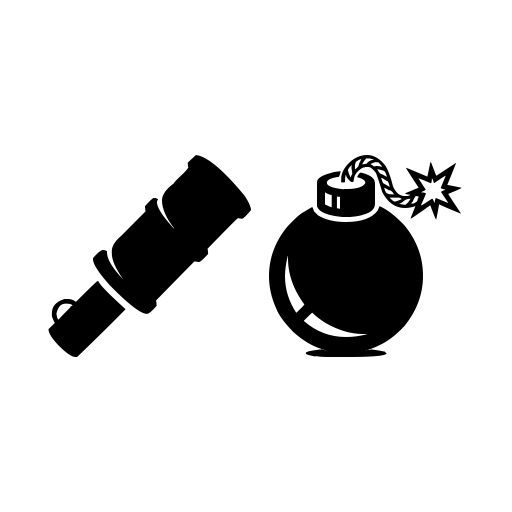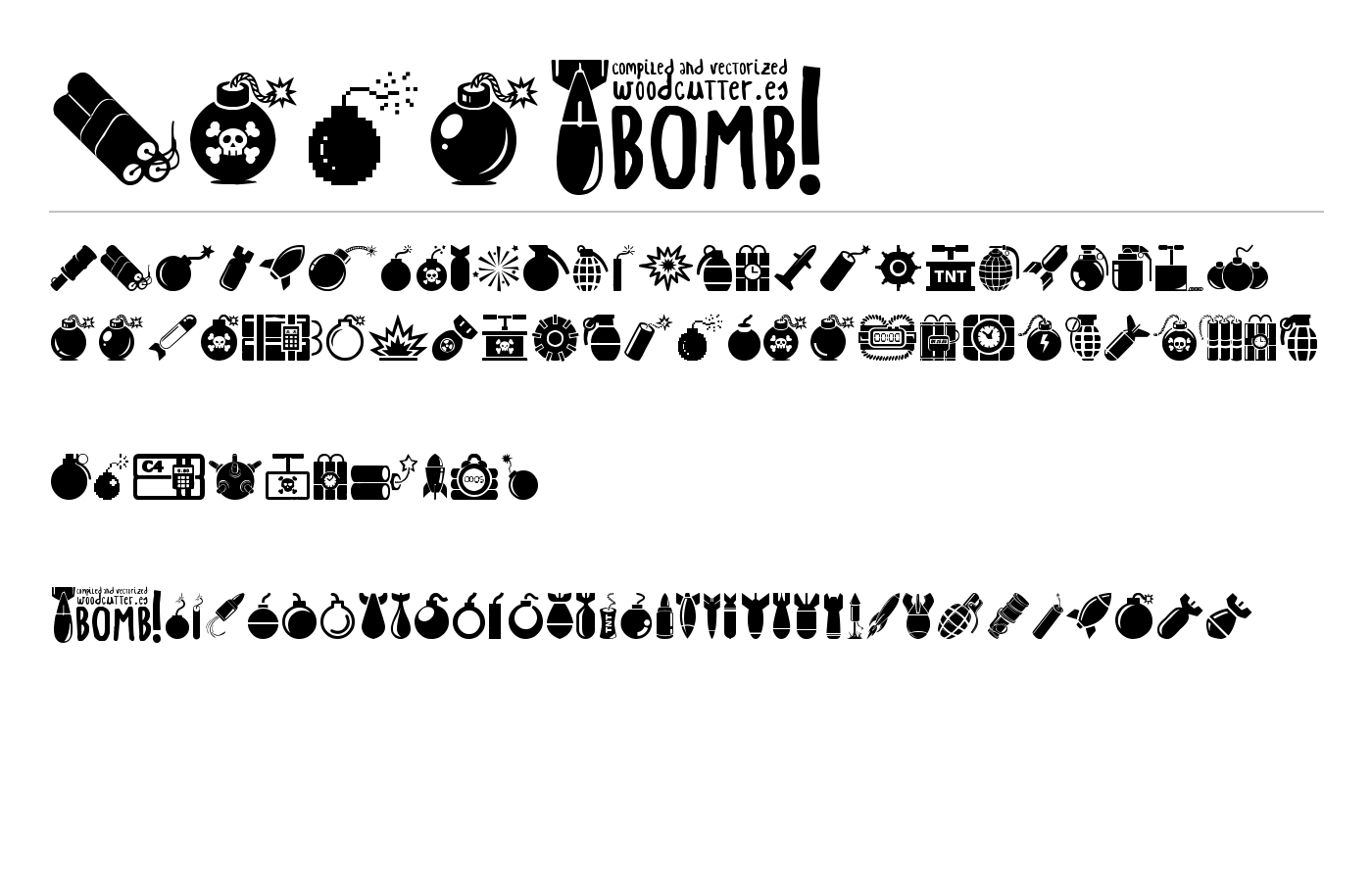
Bomb! Font is a bold and playful dingbat typeface featuring a wide variety of explosive-themed icons like bombs, grenades, and dynamite sticks. Its solid, chunky shapes and high contrast make it eye-catching and perfect for adding a fun, edgy vibe to posters, logos, or themed designs that need a dramatic, comic-style impact.
Bomb! Font
About Bomb! Font